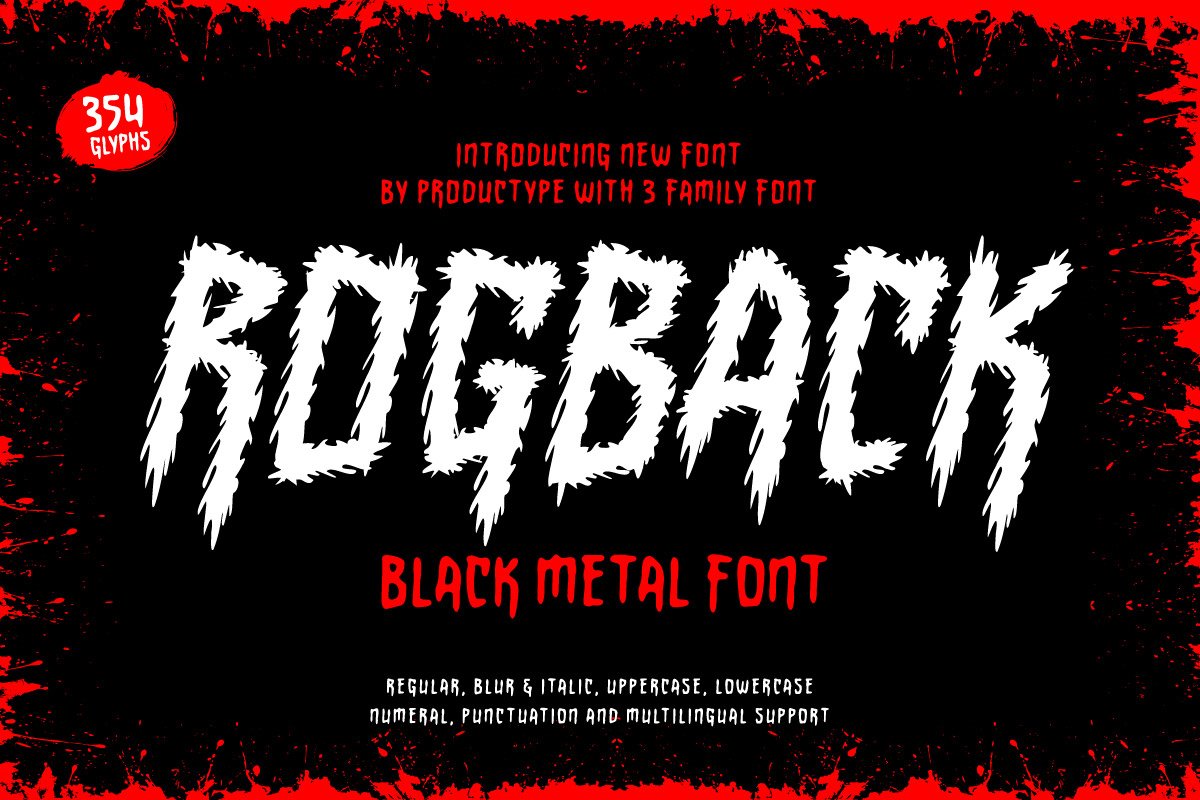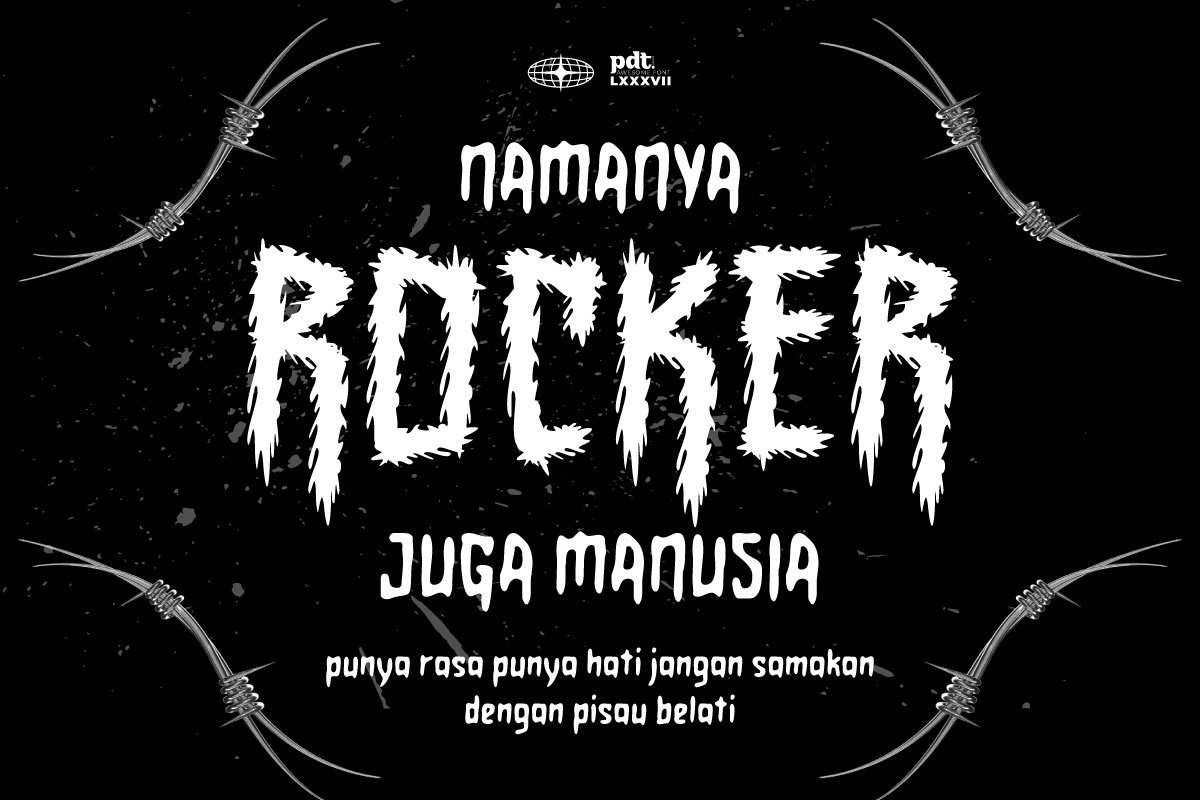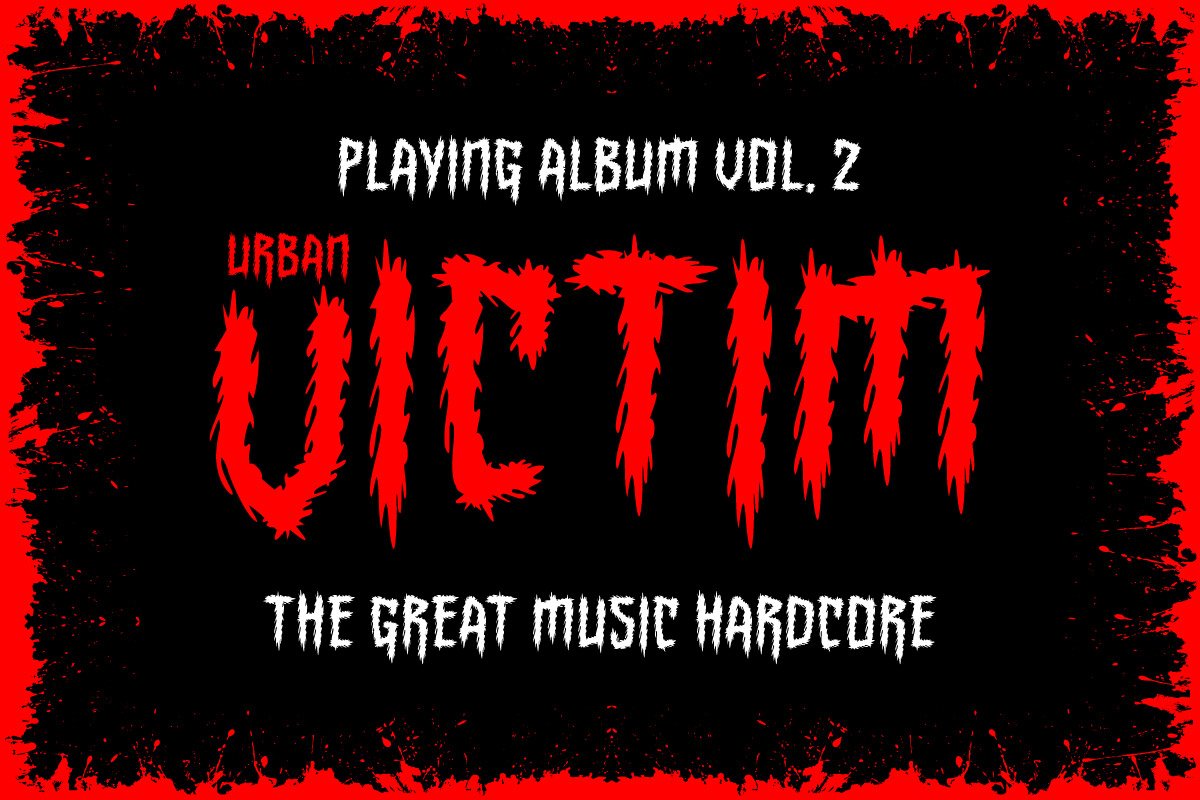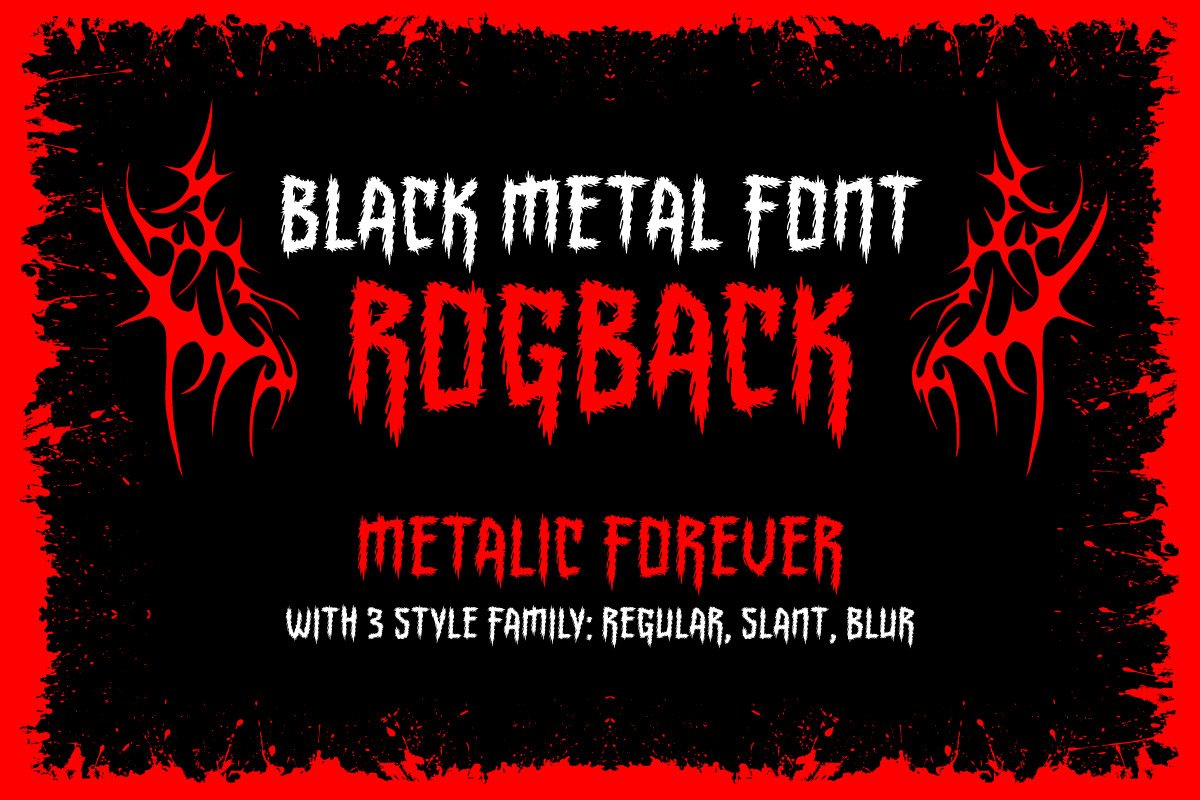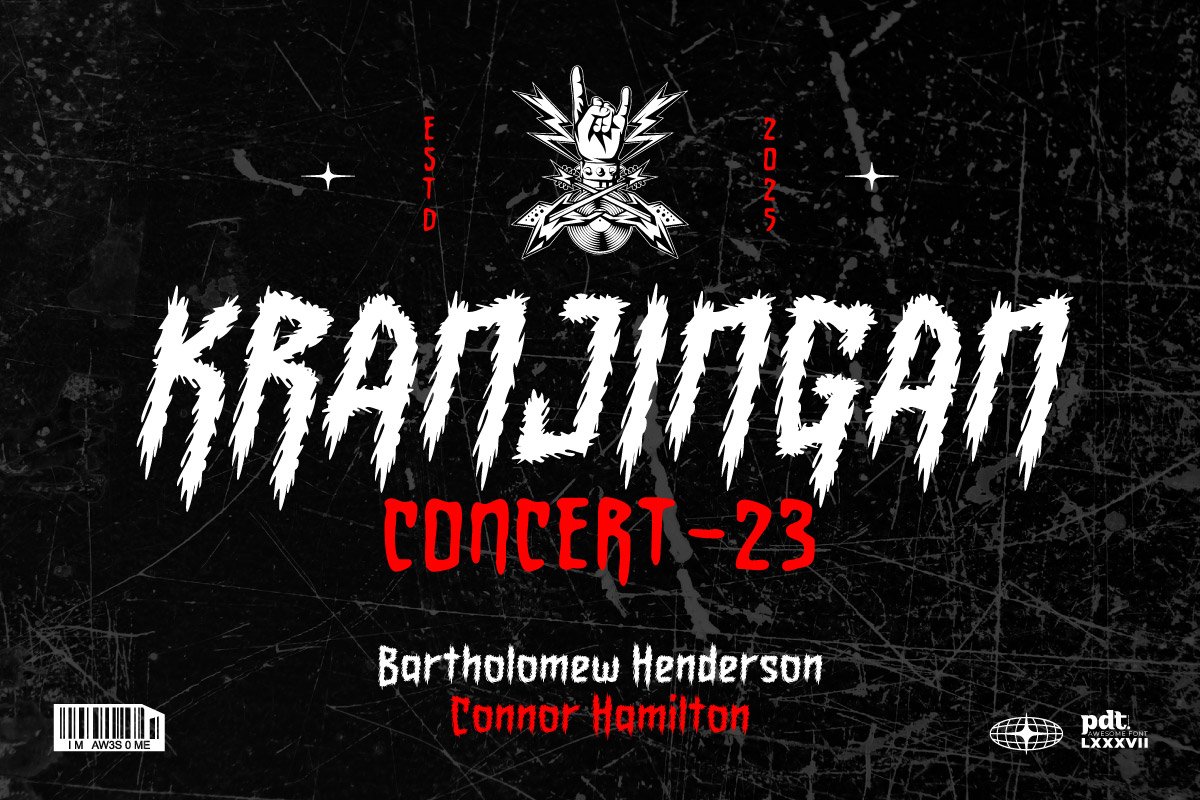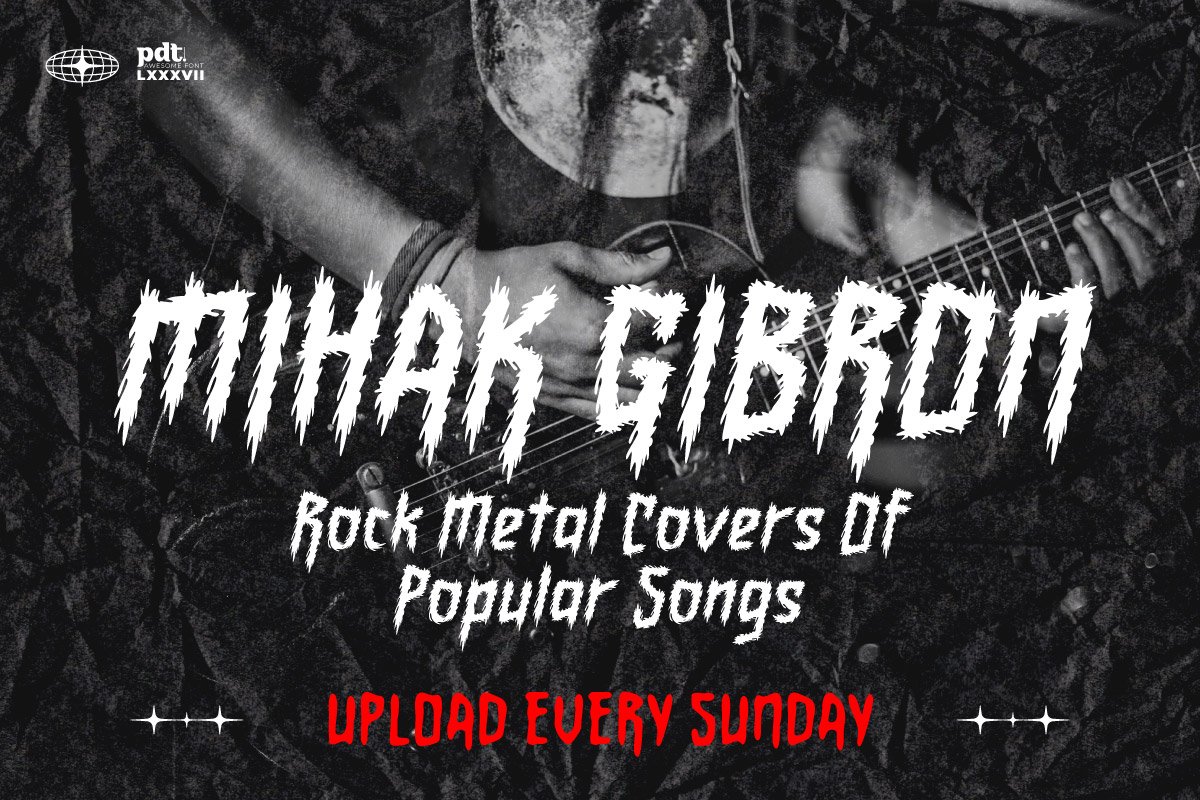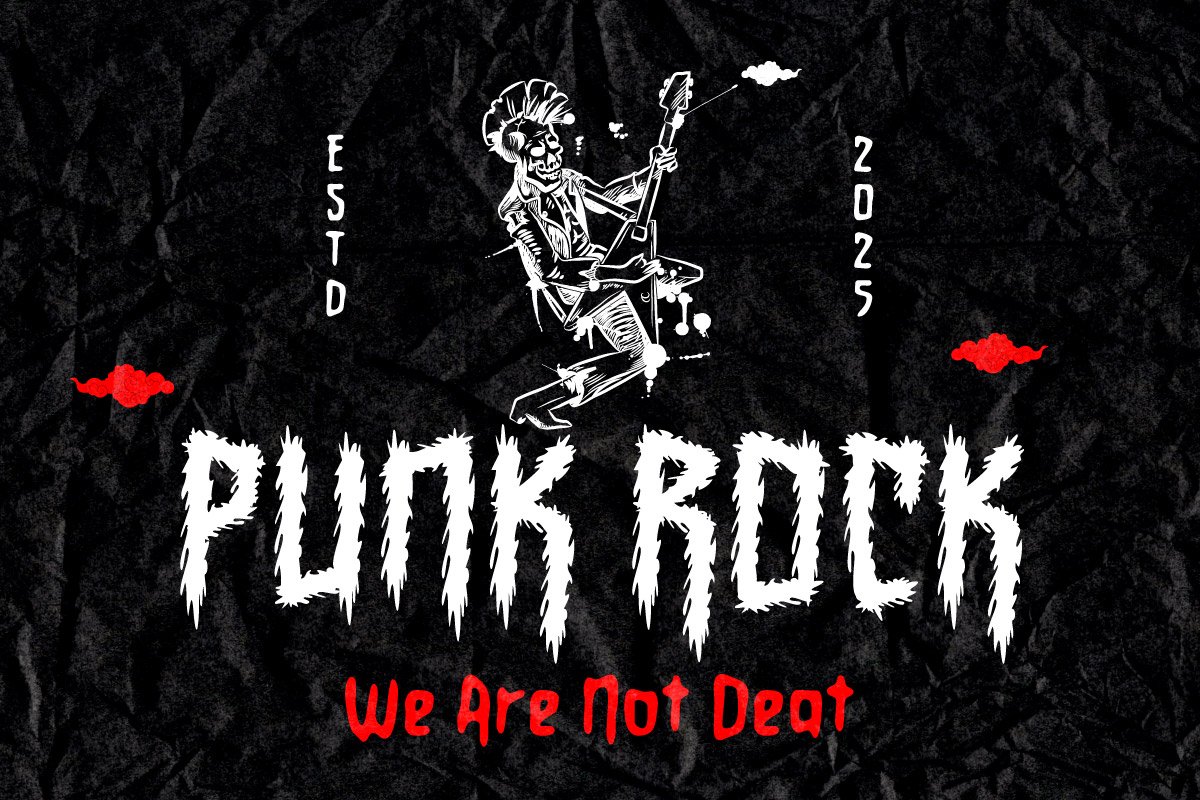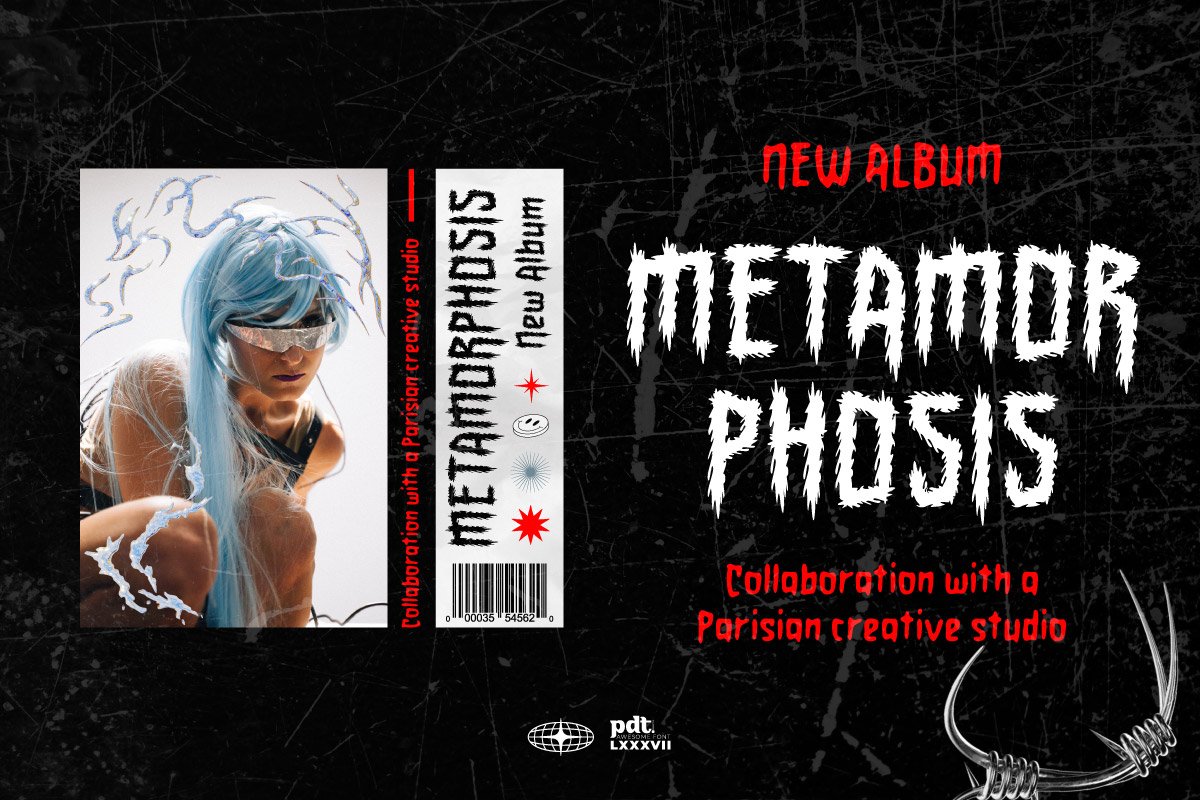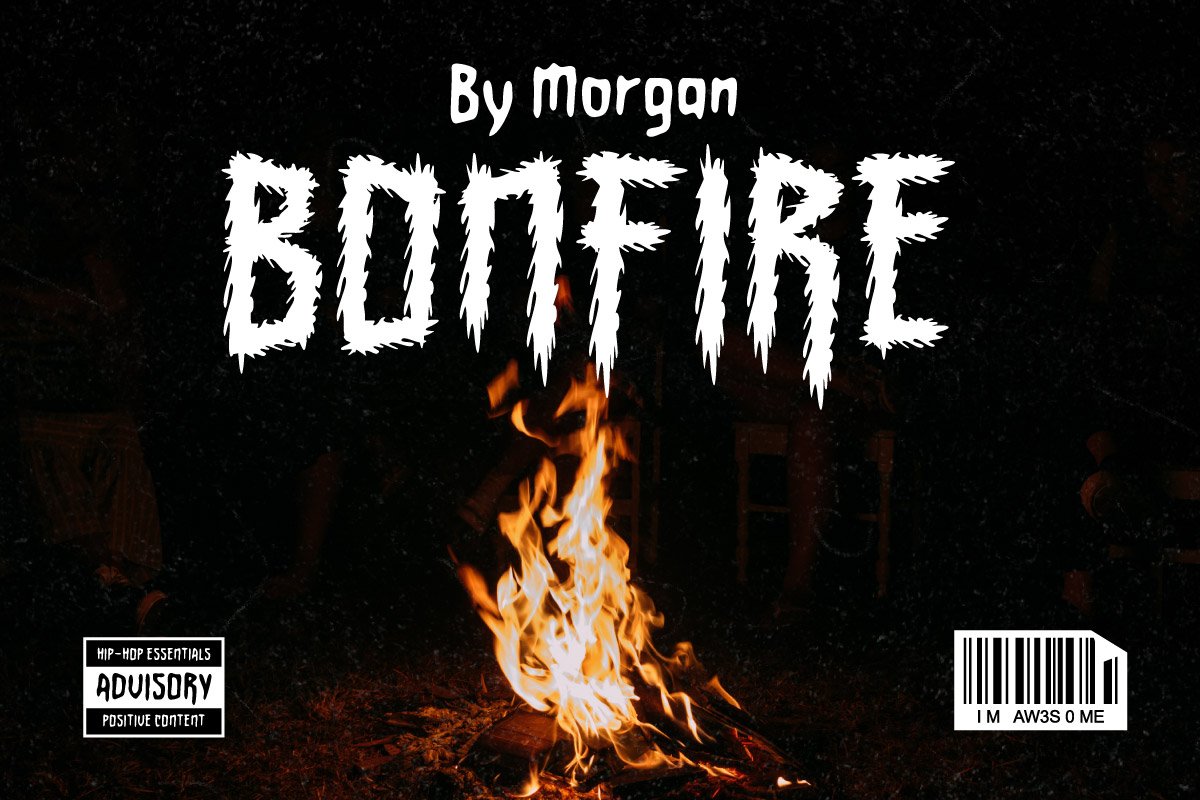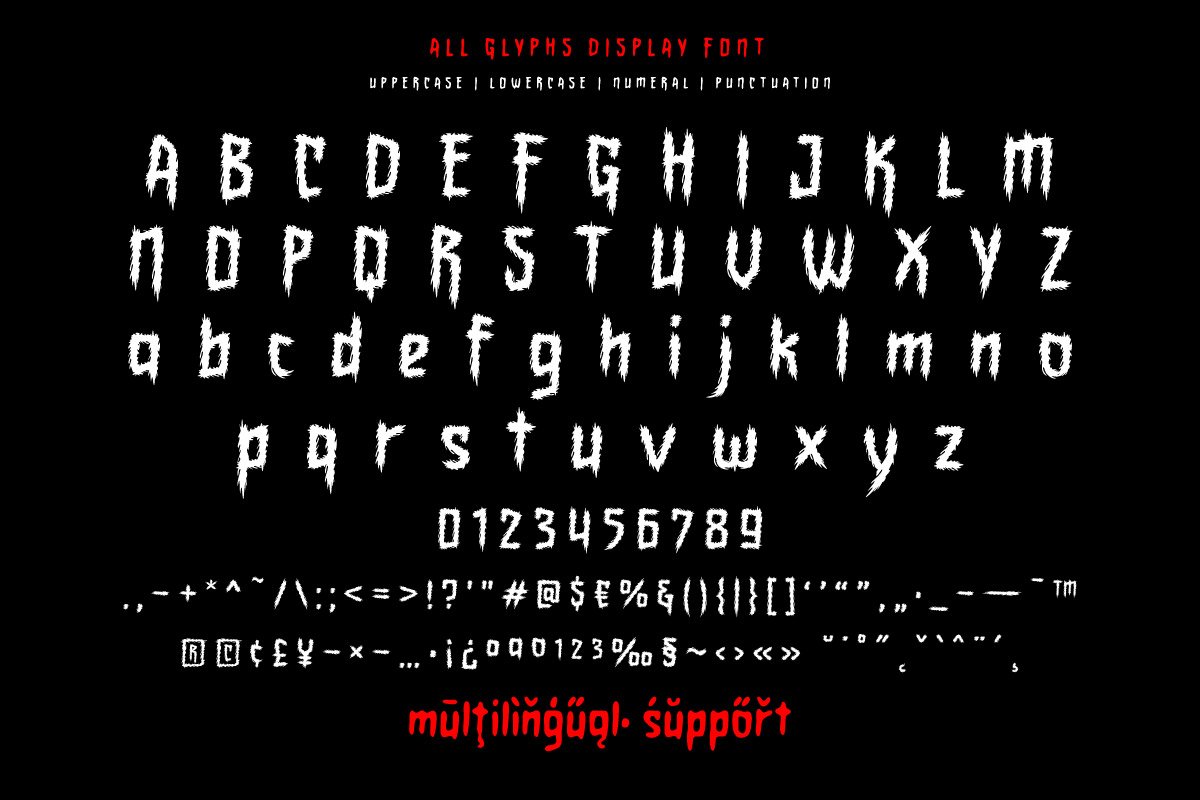
Rogback – Black Metal Font
Rogback – Black Metal Font is a brutal and bold typeface inspired by underground black metal and hardcore aesthetics. Designed for those who dare to be different, Rogback delivers raw energy and sharp edges—perfect for band logos, music posters, album covers, and heavy branding visuals.
This font includes 3 unique styles: Regular, Blur, and Italic — allowing you to experiment and create intense visuals. With uppercase, lowercase, numerals, punctuation, and multilingual support, Rogback is both aggressive and versatile.
Whether you’re a graphic designer, freelancer, or part of a metal band, Rogback brings the power and personality your project needs.